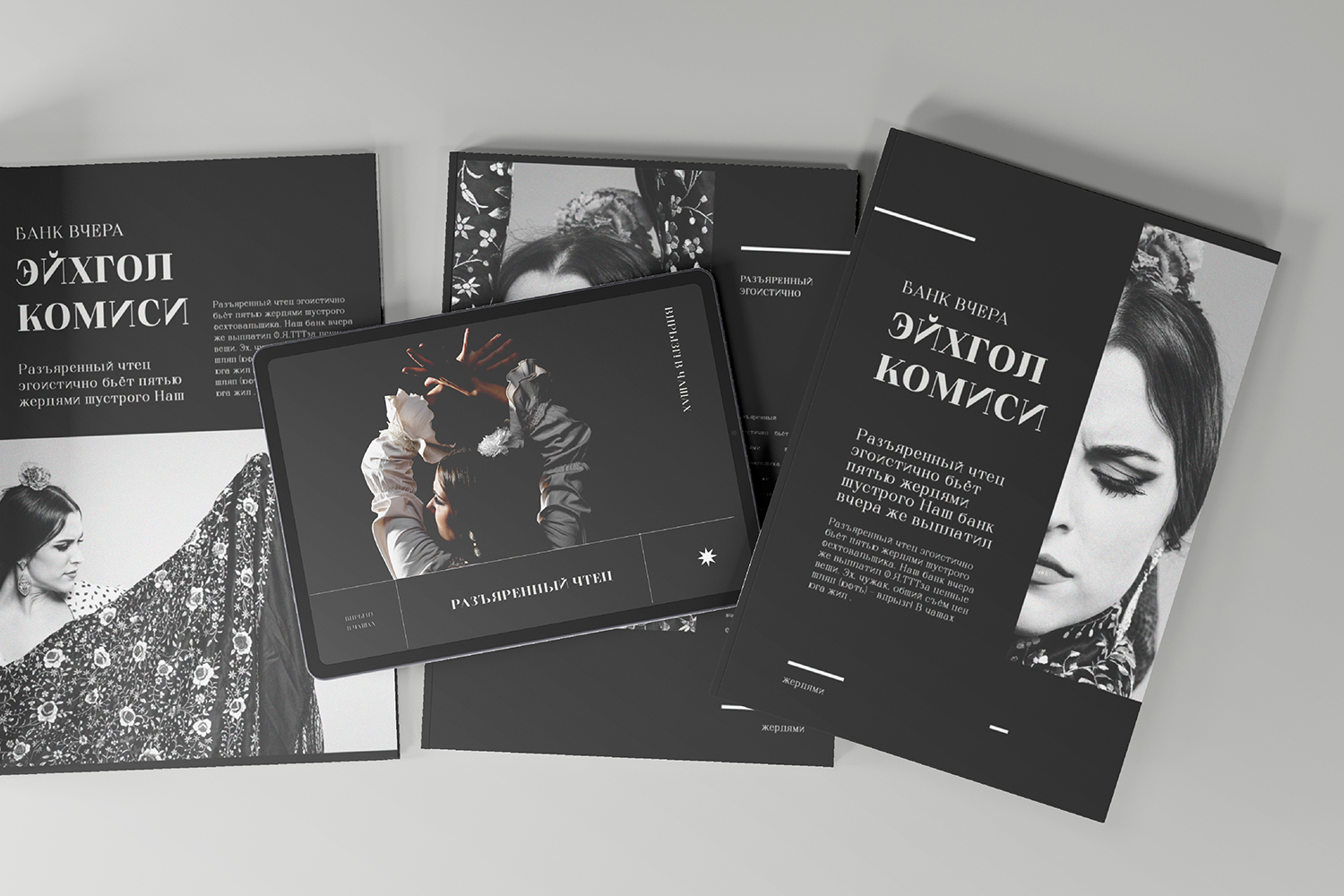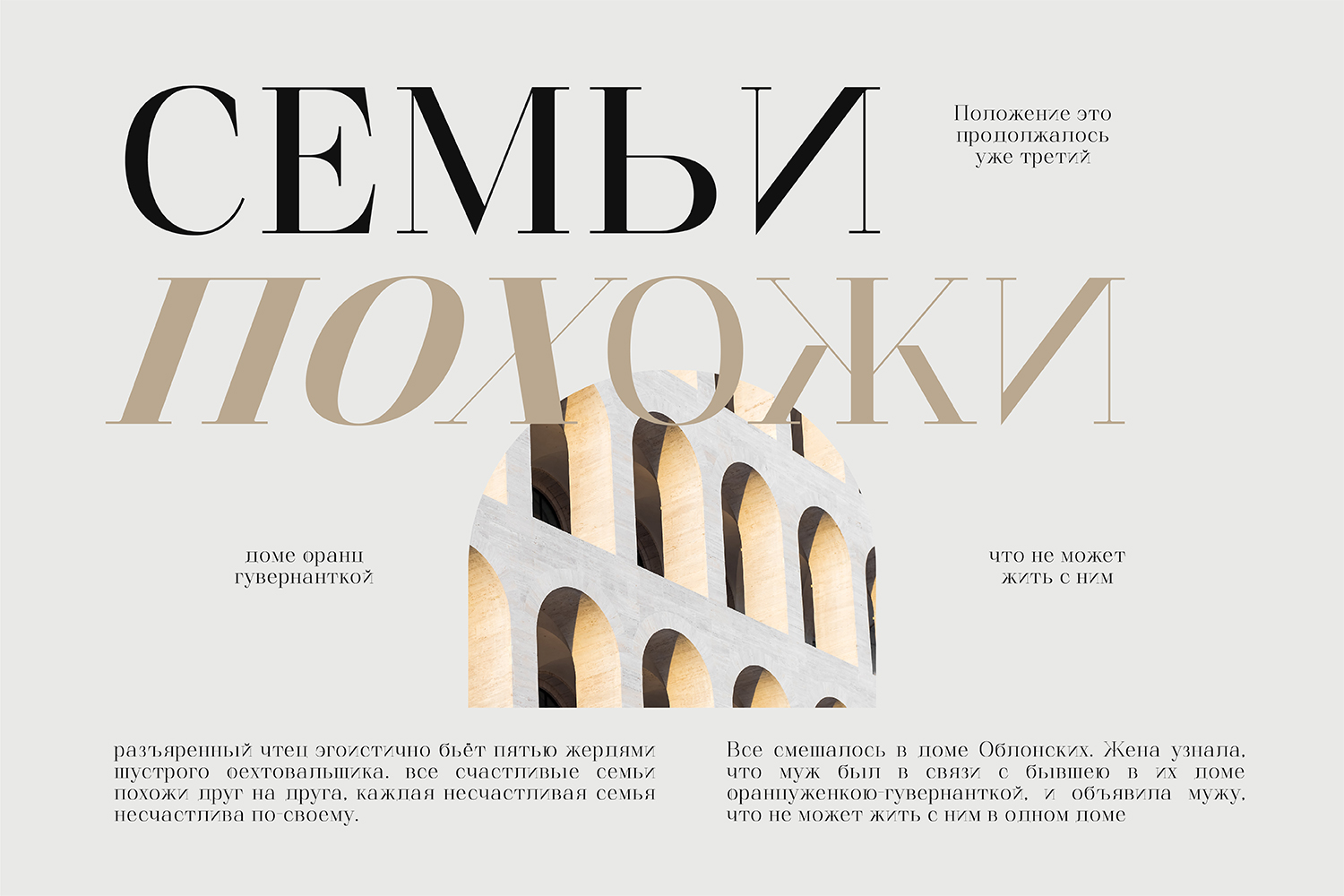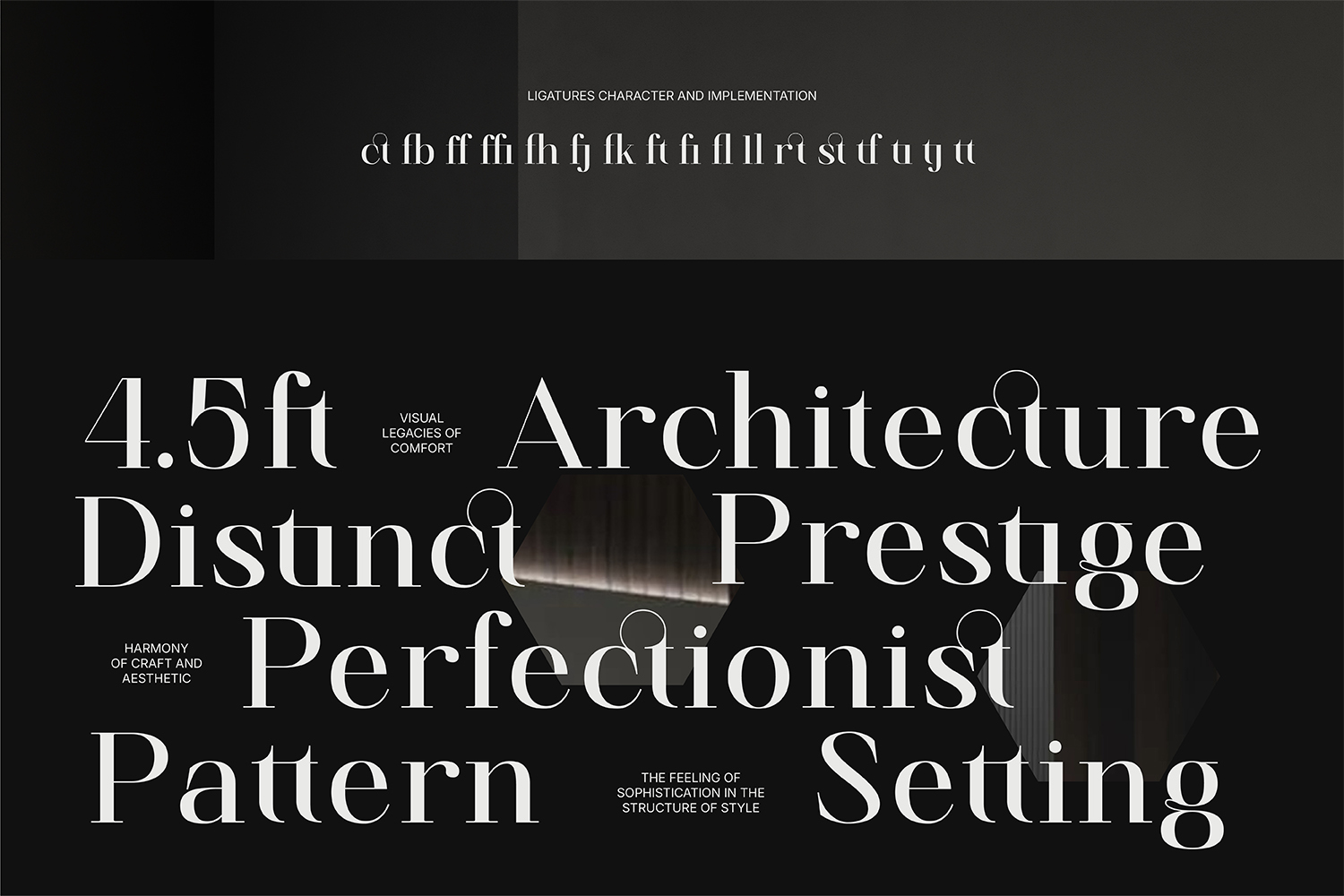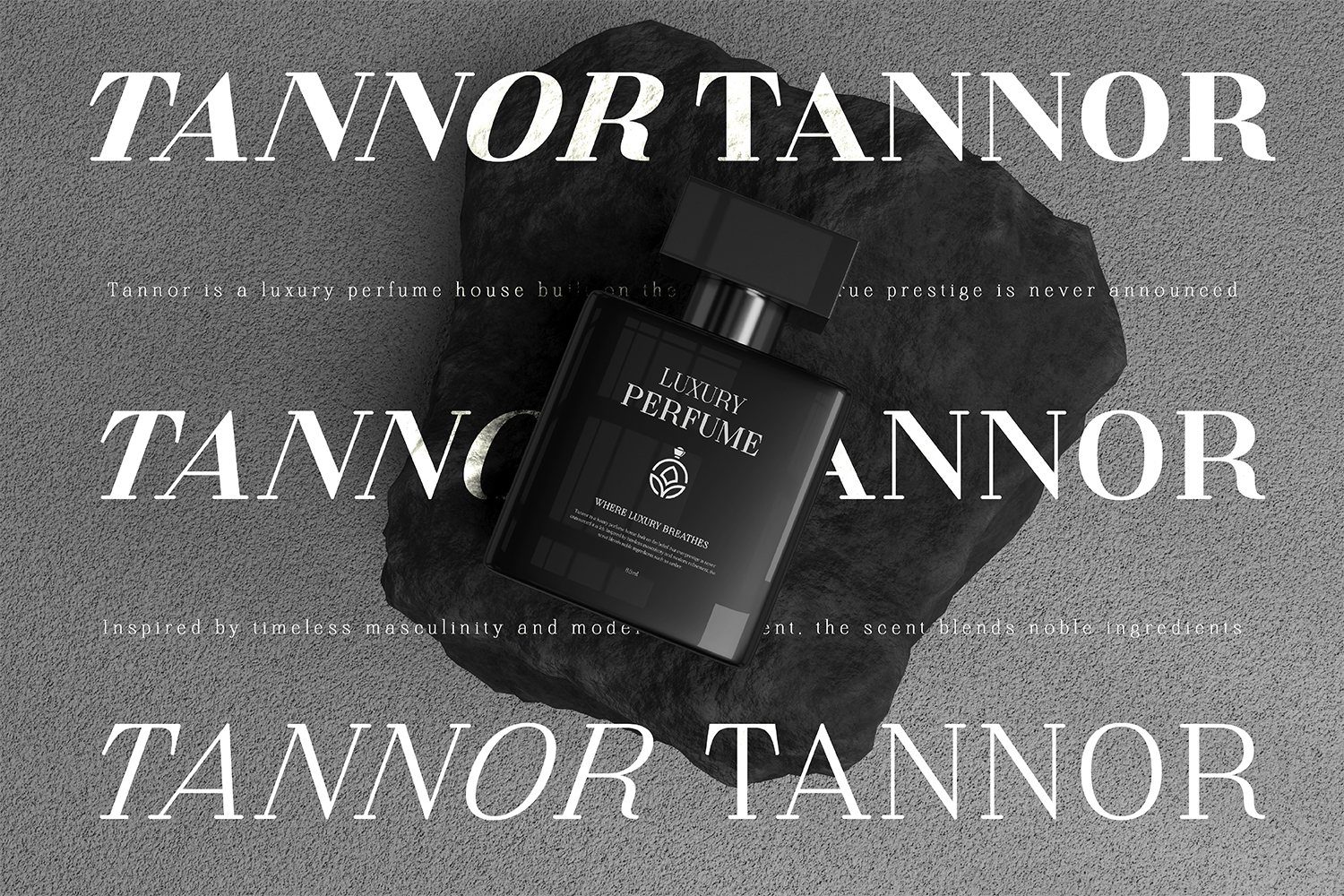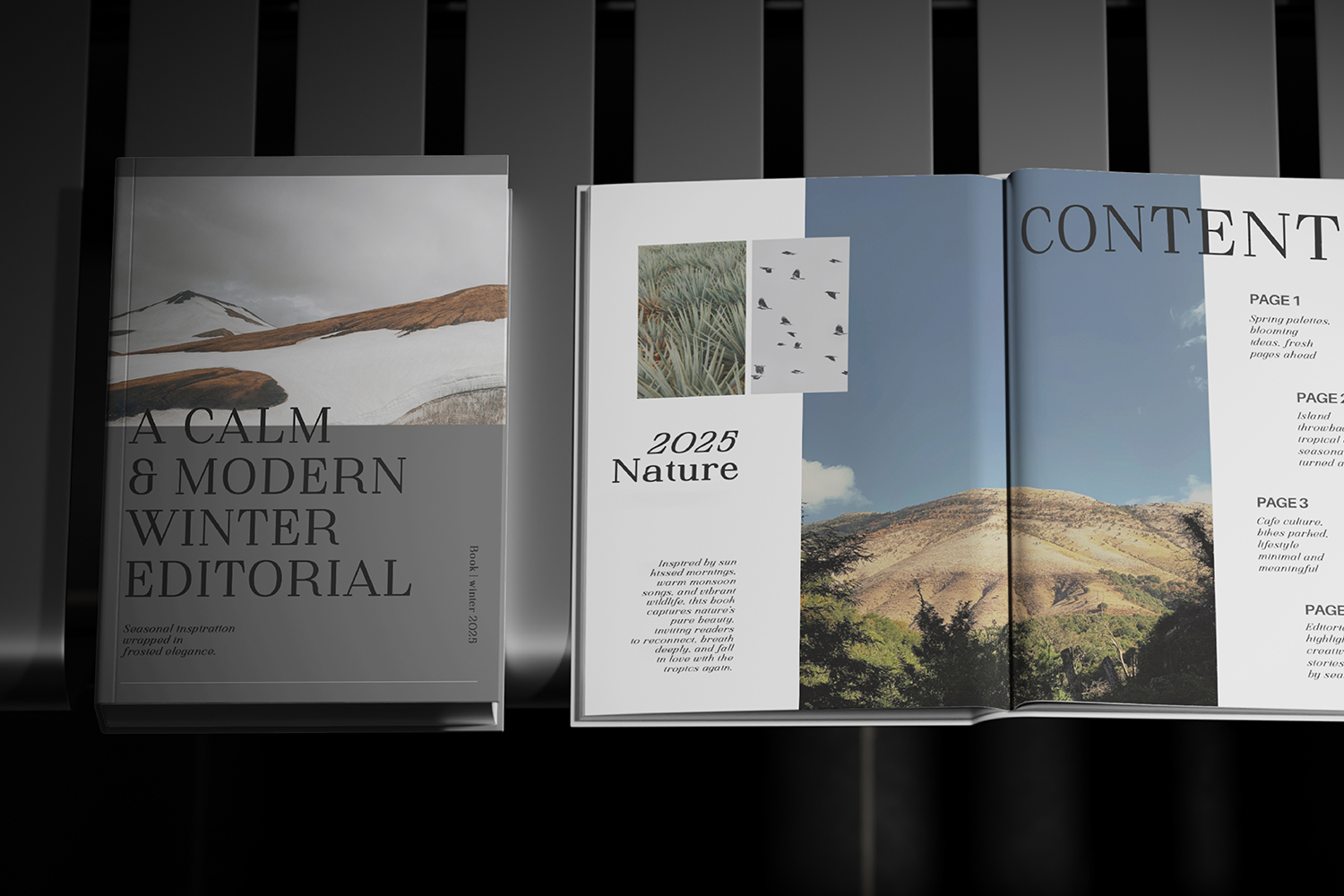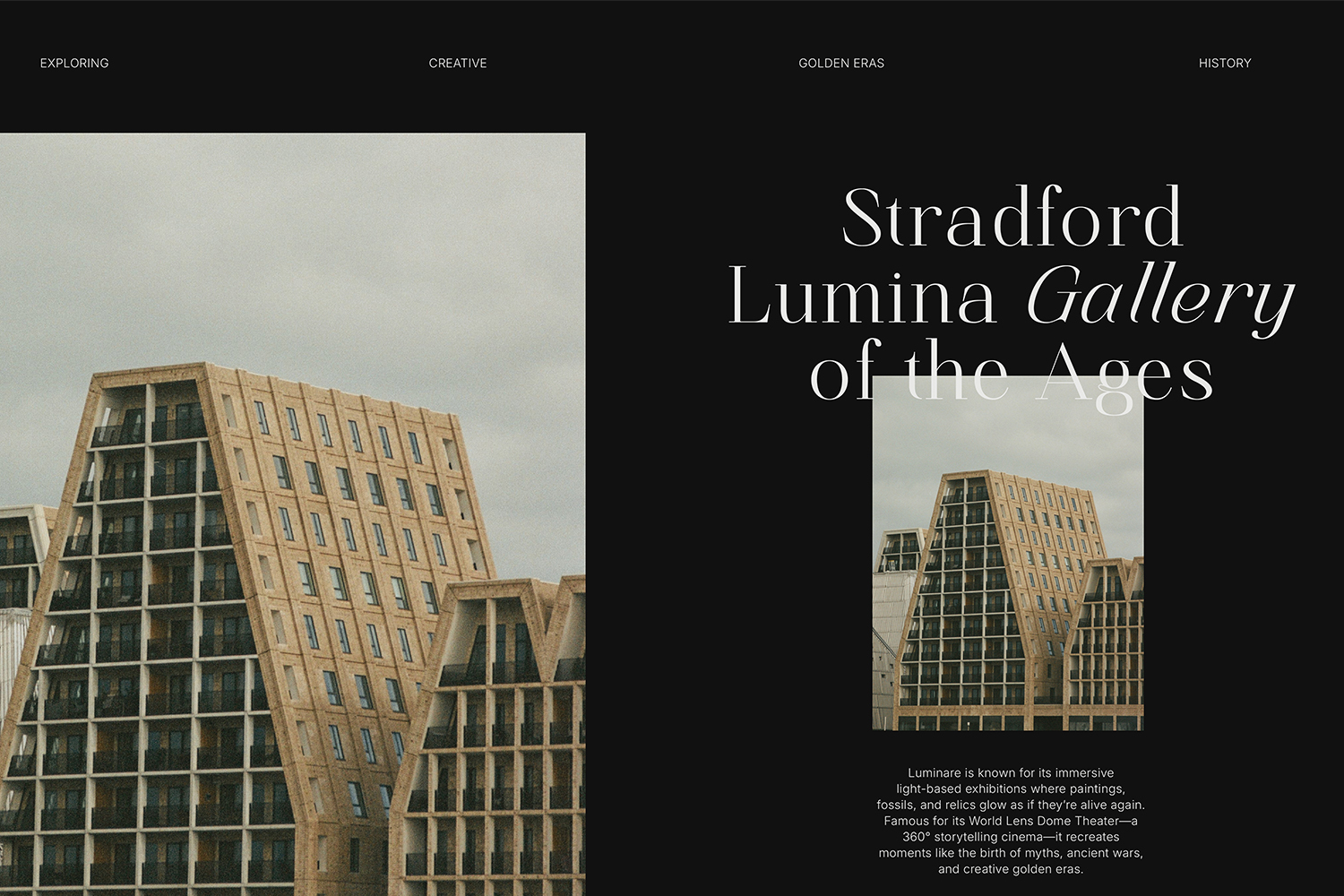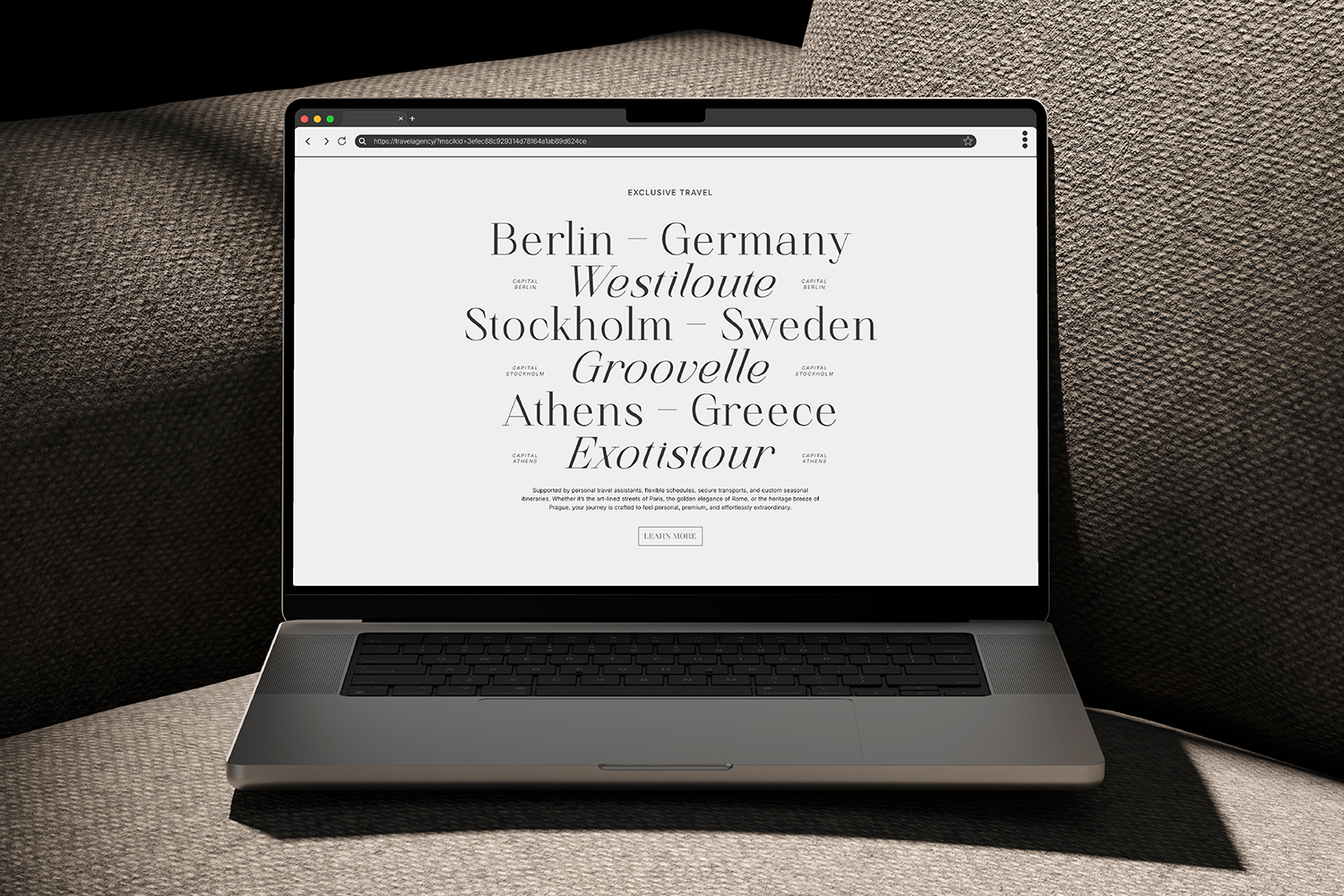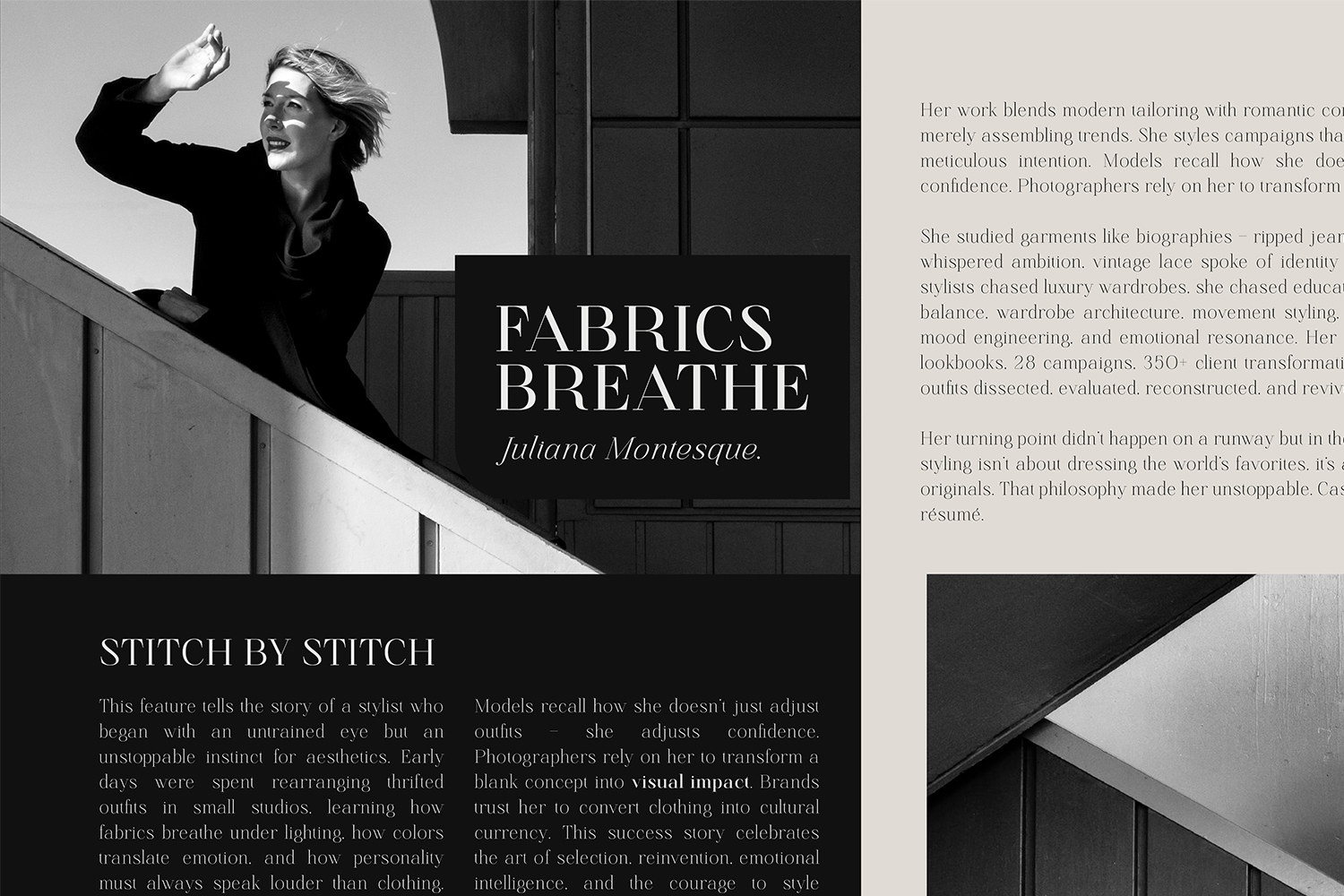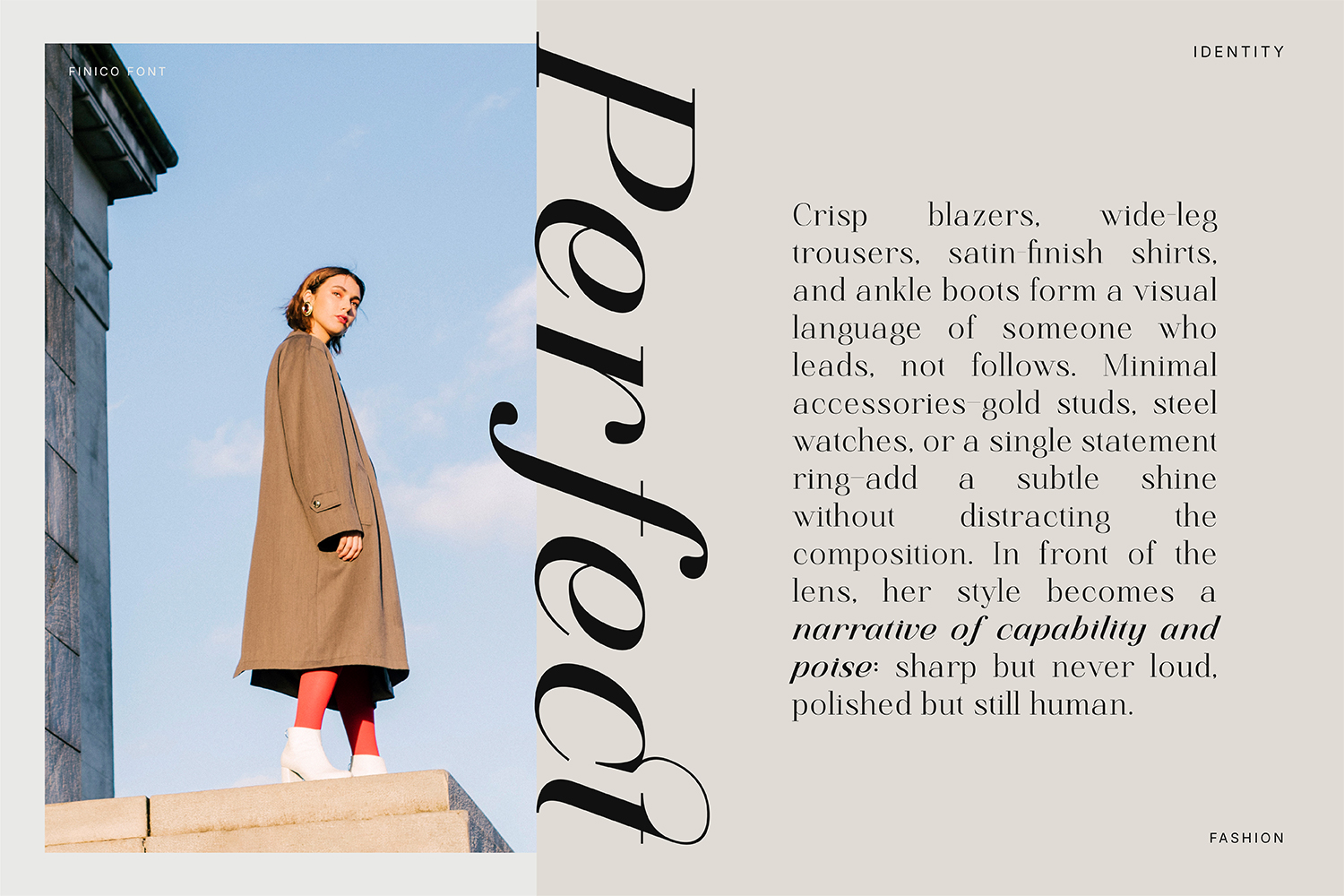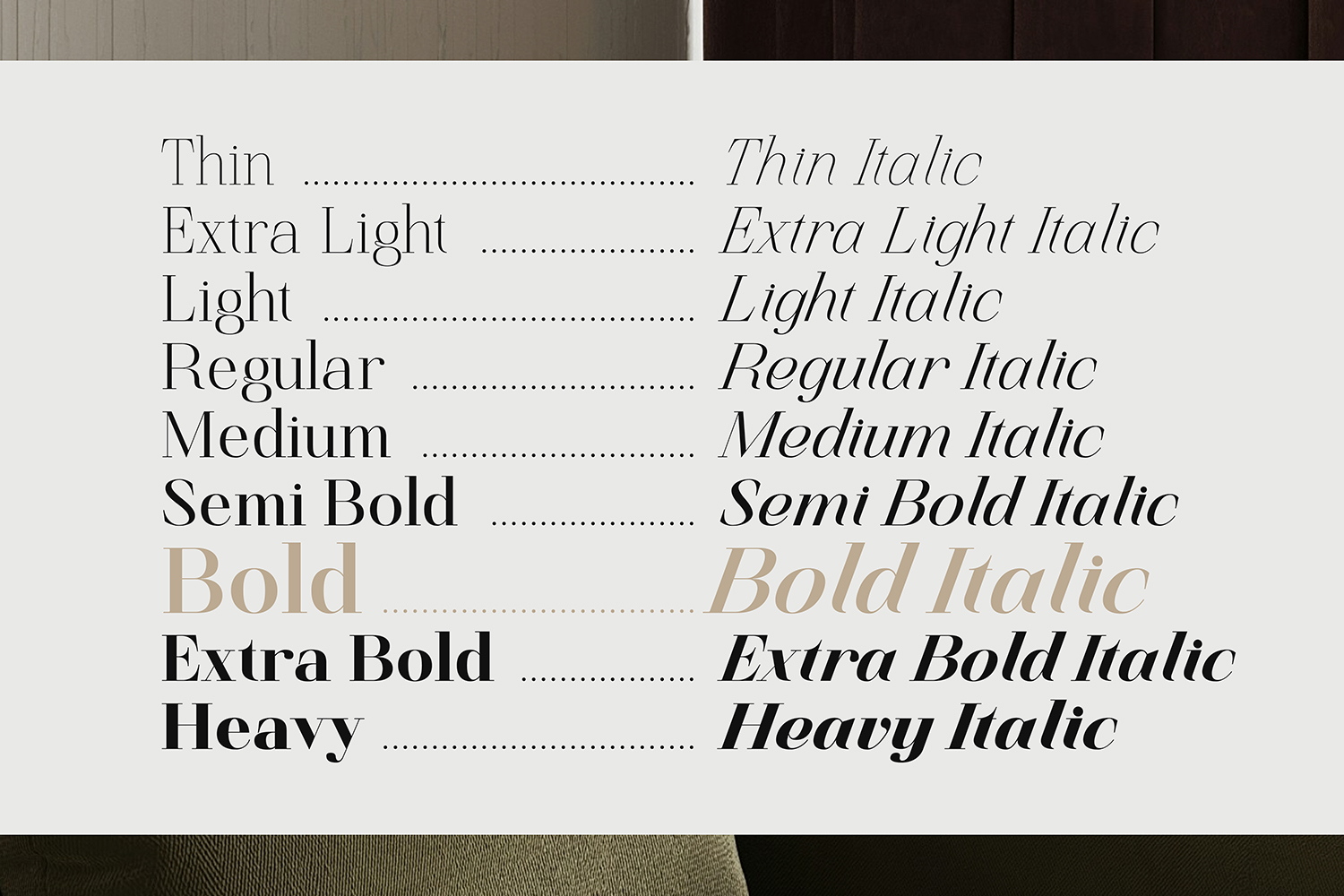
Finico Serif – A Thoughtful Expressive Type for Clear Communication
Meet Finico Serif, a thoughtful high-contrast modern serif. We designed this typeface to help your message stand out with confidence and heart. It offers a rhythmic look, mixing sharp architectural lines with graceful, sculpted curves.
We crafted this versatile 18-style system to be a reliable and sincere voice for your high-end editorials, luxury branding, and premium packaging. We engineered it with meticulous care to ensure that even your most bold headlines feel balanced, professional, and inspired.
FEATURES
- 18 System Styles: 9 weights from an ethereal Thin to a commanding Heavy, each with its expressive Italic.
- Technical: Over 900+ glyphs, artistically crafted stylistic ligatures, and Variable Font technology for smooth digital performance.
- Ideal for: Editorial mastheads, fashion identities, luxury packaging, and boutique website headers.
- Global Support: Reliable support for worldwide accessibility, including full Latin and Cyrillic sets.